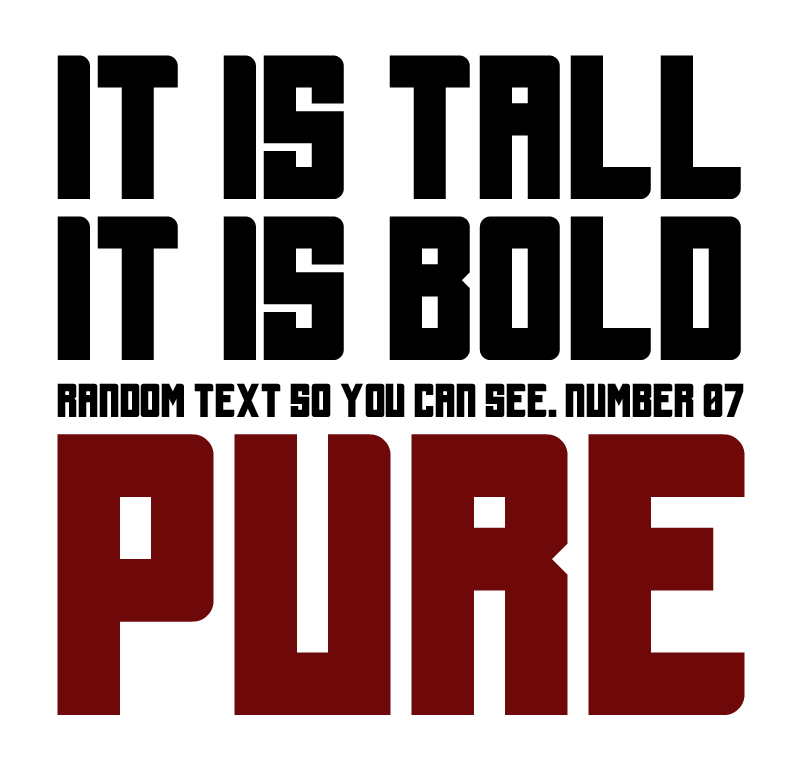
Font name: | Tall Bolder |
Author: | Blazej Gradziel |
Note by Blazej Gradziel | |
My first font. Supersimple. Just to check how it works :) Made in CorelDraw. Cheers and enjoy. Support if you want by buying me a beer :) |